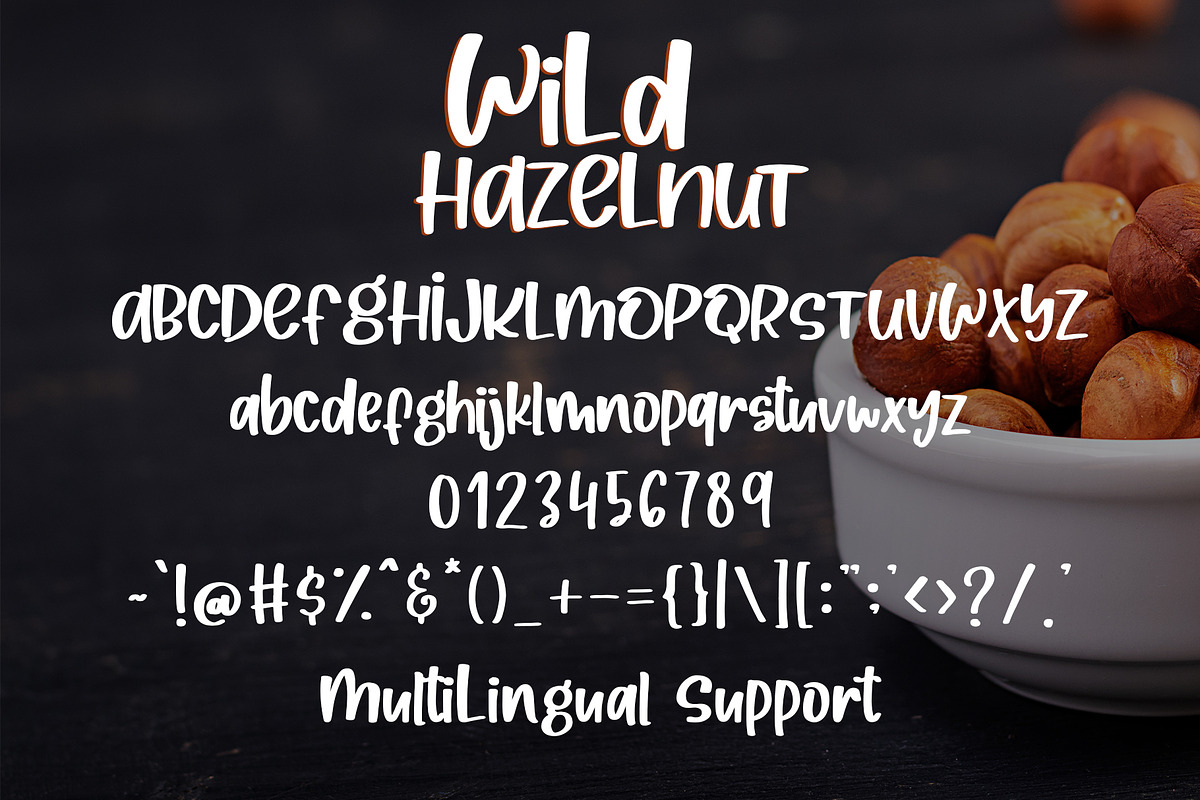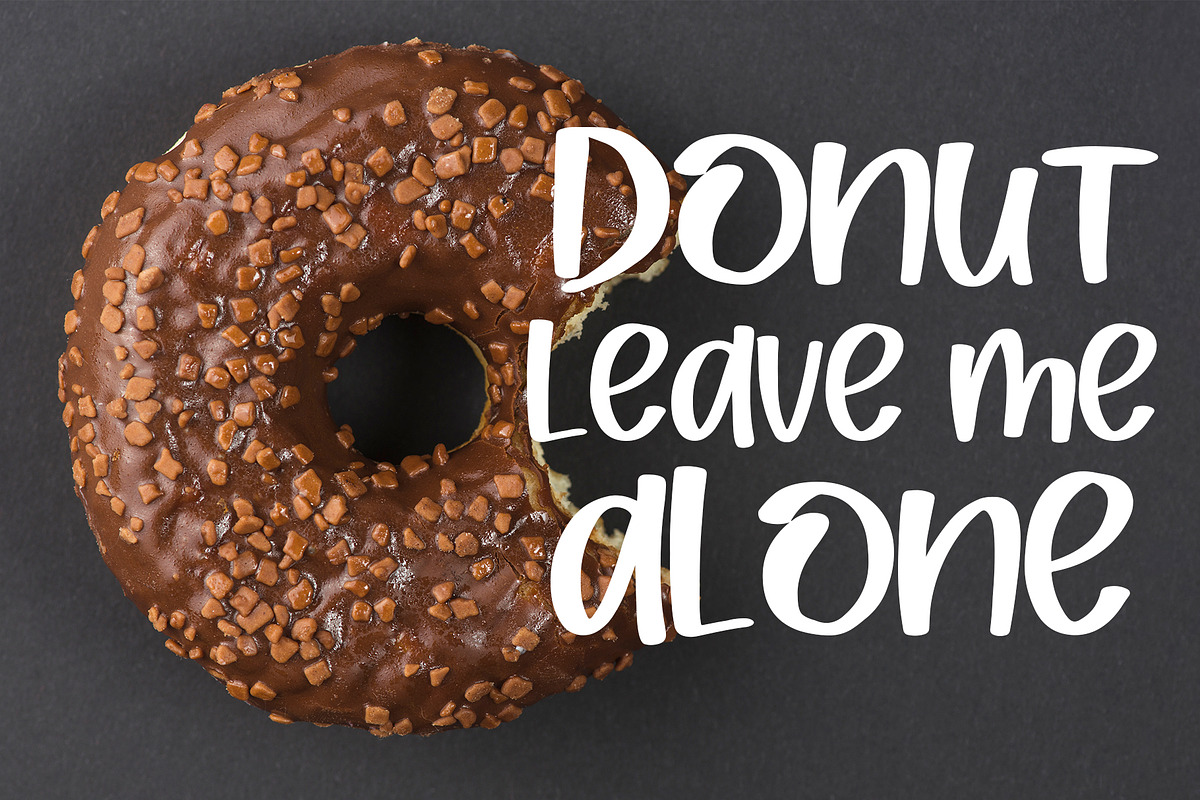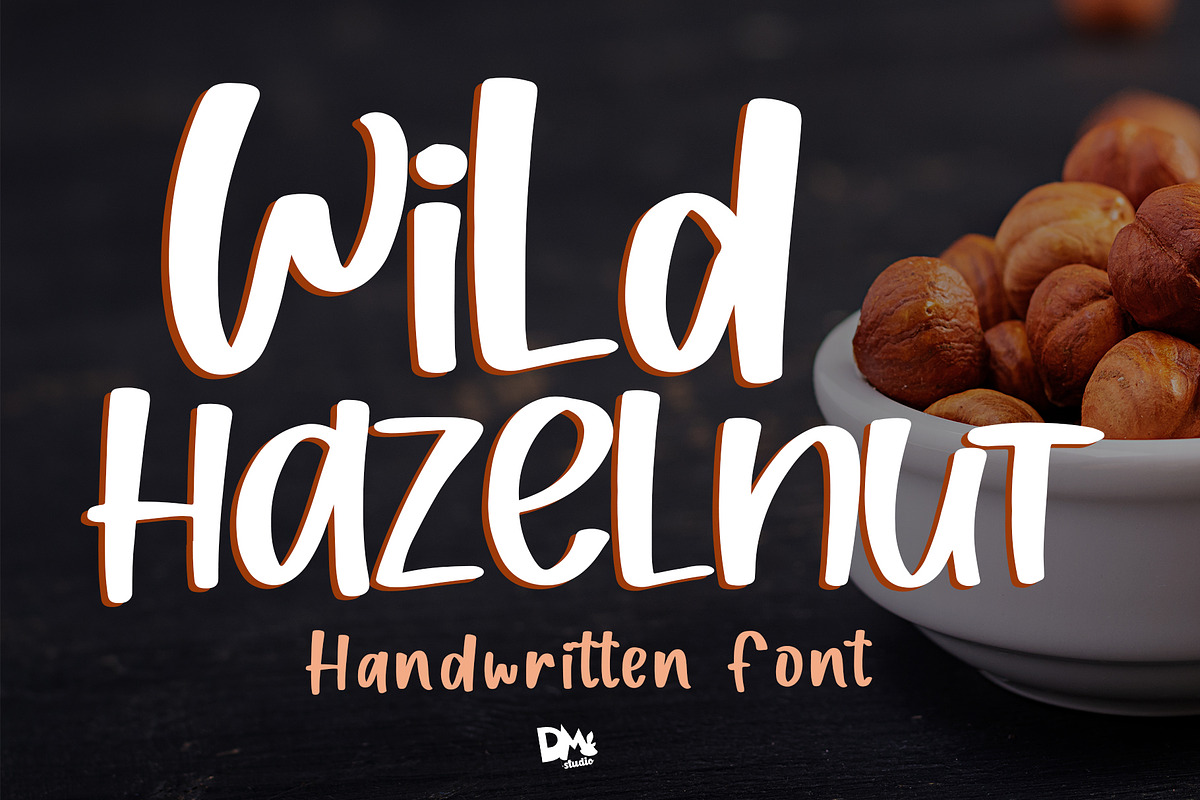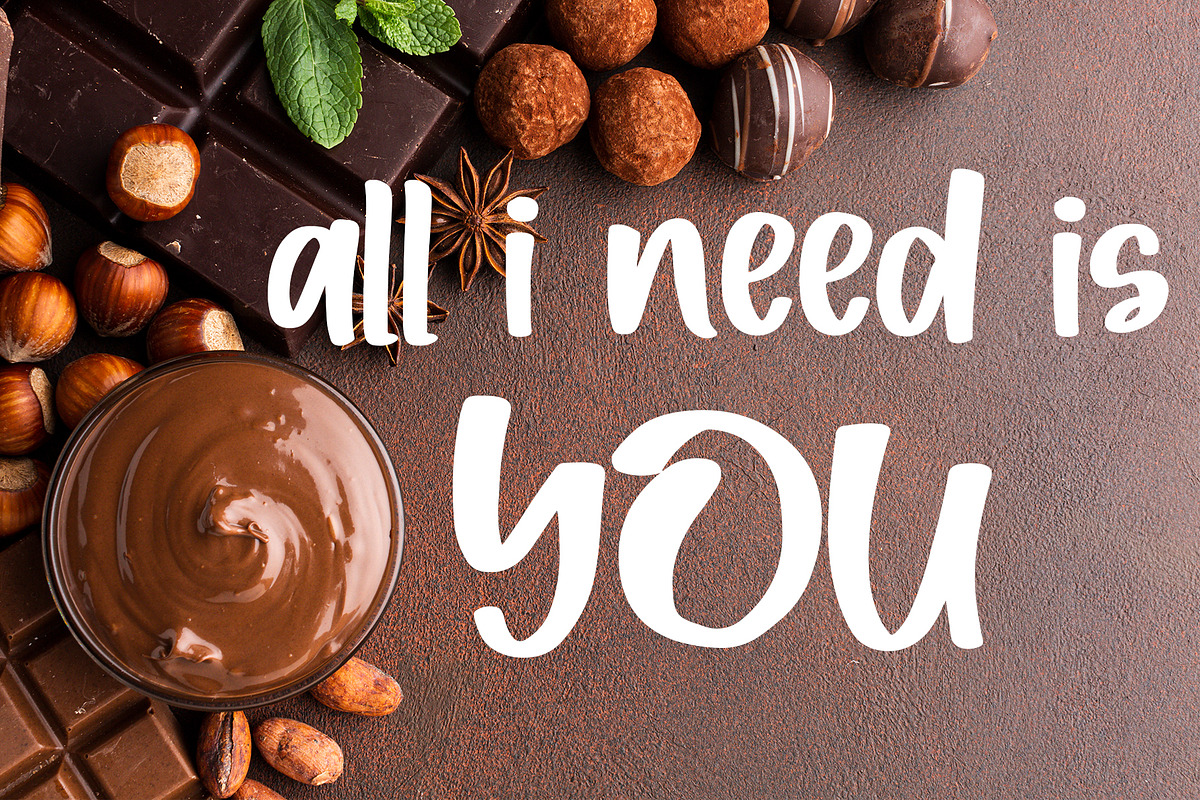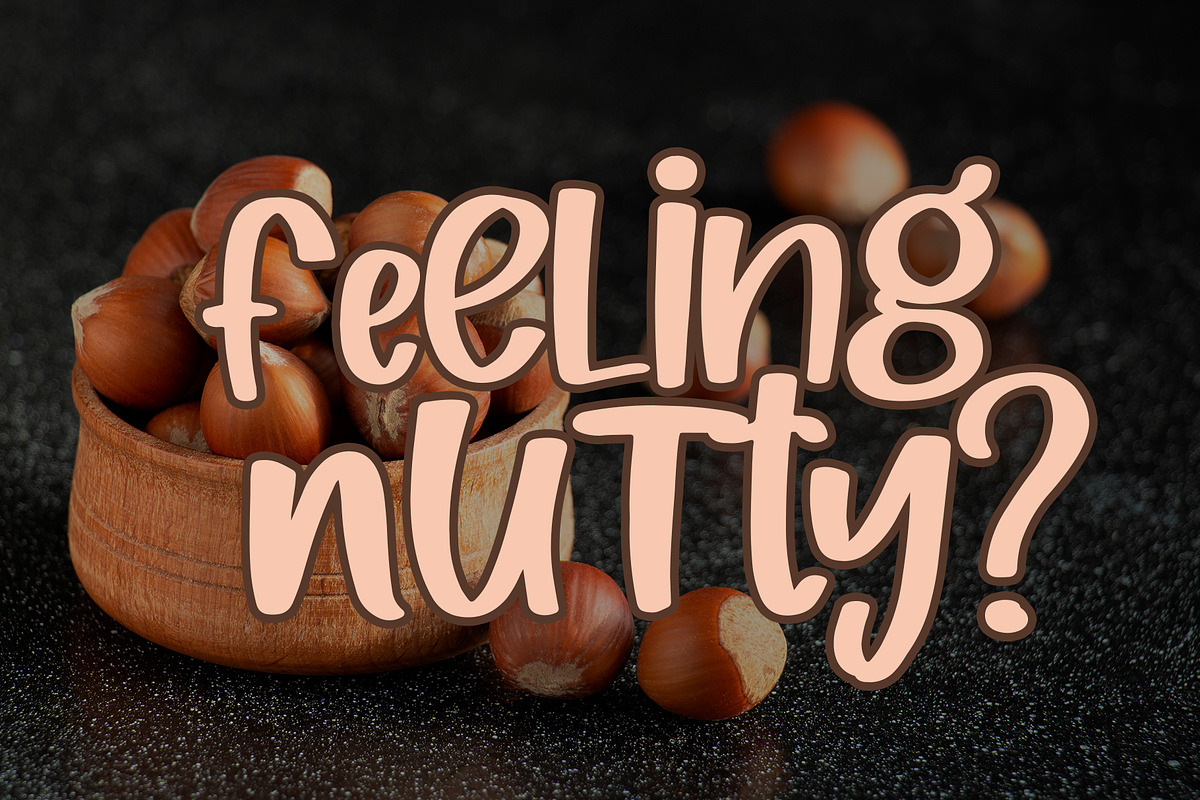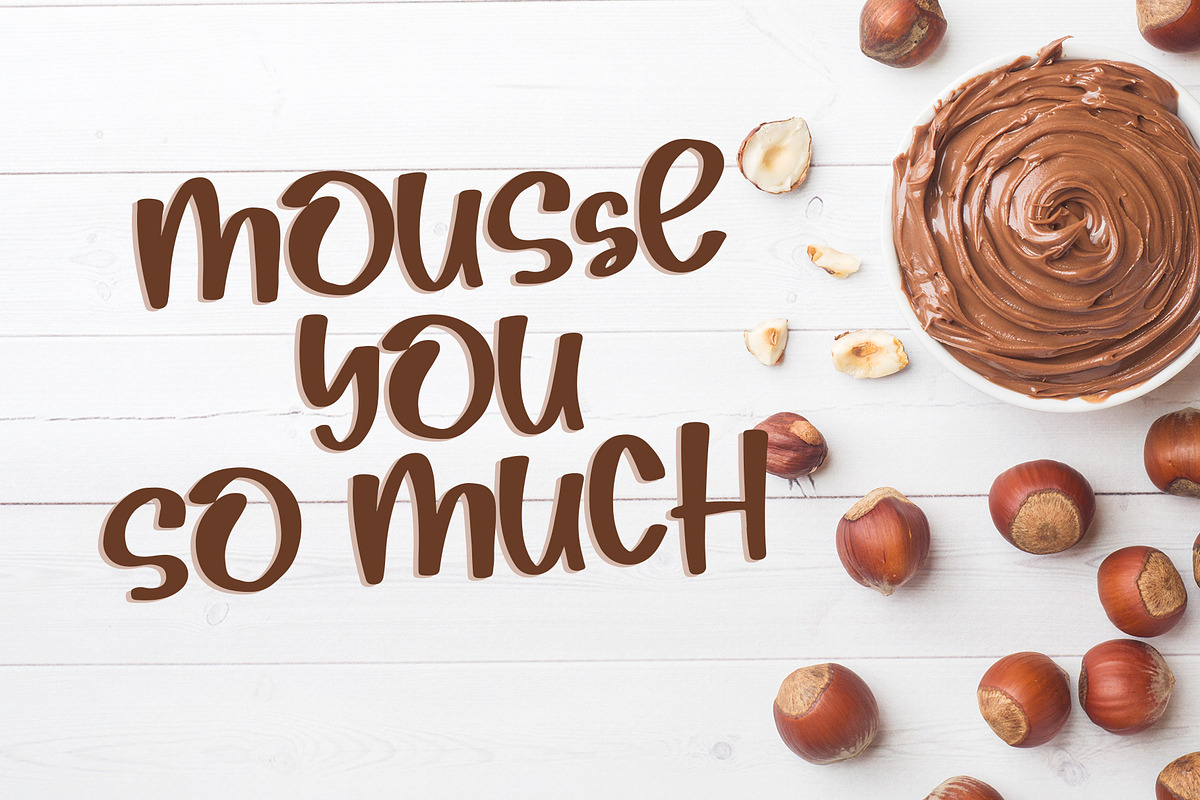
Wild Hazelnut - Handwritten Font
Sweet, Casual and versatile handwritten font. Great for your stunning crafty design!
- Uppercases
- Lowercases
- Numerics
- Multilingual
Wild Hazelnut - Handwritten Font by Dm Studio fits naturally into Branding, posters, packaging, typography.